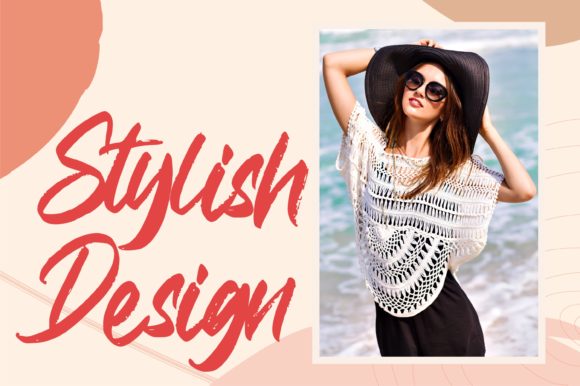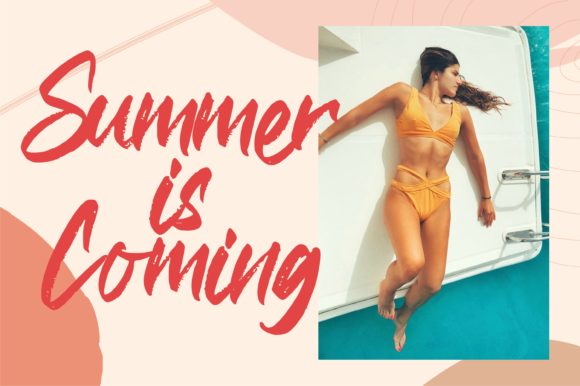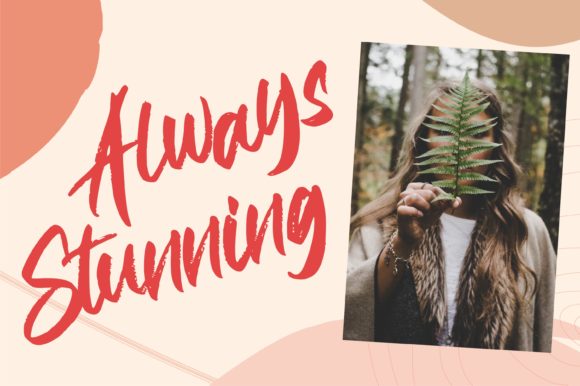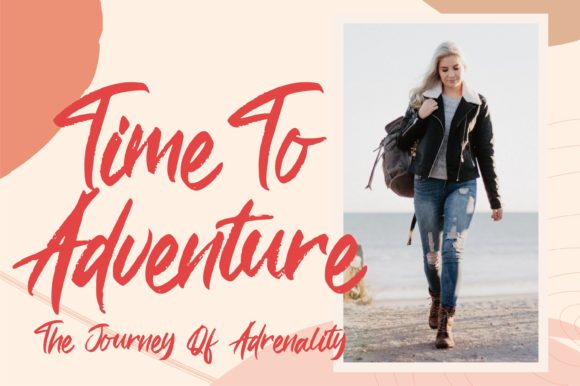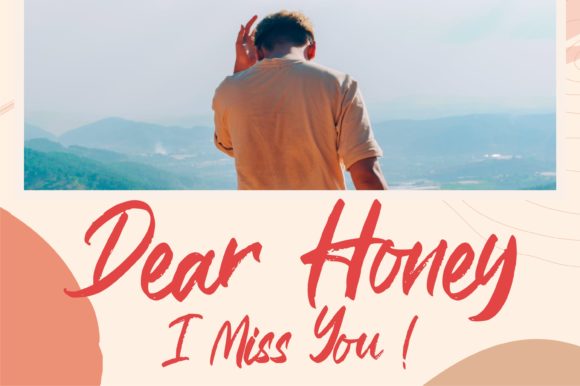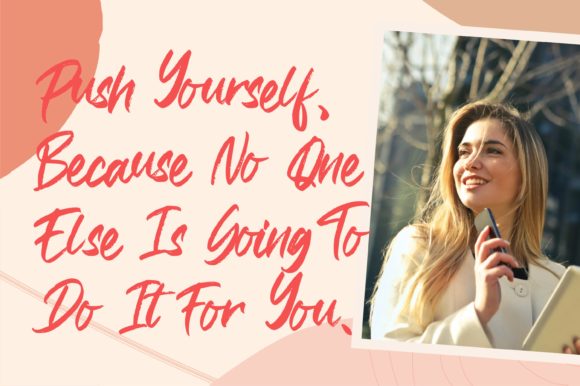
Introduction to Padrox Font
Have you ever found yourself in the middle of a creative project, staring at a blank canvas, desperate for the perfect font to bring your vision to life? This is exactly where I was when I stumbled upon the Padrox Font – a stunning, handwritten font that has become my go-to design resource.
What I love about the Padrox Font is its unique blend of elegance and playfulness. With its brushed and timeless feel, it’s perfect for adding a touch of sophistication to your designs. Whether you’re working on a personal project or a commercial one, this font is sure to make your work stand out. Plus, it’s free to download, making it an invaluable resource for designers on a budget.
As a designer, having access to high-quality fonts like Padrox Font can be a game-changer. With its transparent background and versatility, it’s ideal for a wide range of creative projects, from branding and marketing materials to social media graphics and more.
Key Features of Padrox Font
- High-quality font with a transparent background, ideal for creative projects and design resources.
- Features a unique, modern design that can be used for a wide range of creative projects, from logos to typography.
Honest Review: Padrox Font
I recently stumbled upon the Padrox Font, and I must say it’s a great addition to any designer’s toolbox. This font is a great design resource for creative projects, especially those that require a unique and modern touch.
What works well about the Padrox Font is its high quality and versatility. It’s a great choice for both print and digital projects, and its transparent background makes it easy to customize. I also appreciate that it’s a free download, making it accessible to designers of all levels.
- ✨ Unique and modern design
- ✨ High quality and versatile
While the Padrox Font is a great resource, there are a few limitations to consider. The font may not be suitable for projects that require a more traditional or classic look, and some users may find the font’s unique design style a bit overwhelming.
Overall, I’m impressed with the Padrox Font and would definitely recommend it to designers looking for a modern and unique font for their creative projects.
Tips for Getting the Most Out of Padrox Font
To get the most out of the Padrox Font, use it in combination with other design elements to create a visually appealing design. Experiment with different font sizes, colors, and styles to find the perfect balance for your creative project.
The Padrox Font is ideal for use in various design projects, including logos, brochures, business cards, and social media graphics. Its high-quality design and transparent background make it a popular choice among designers.